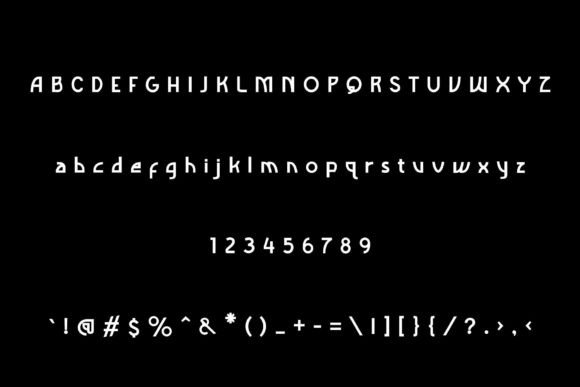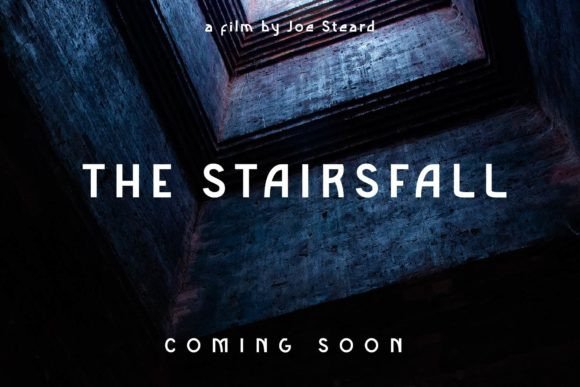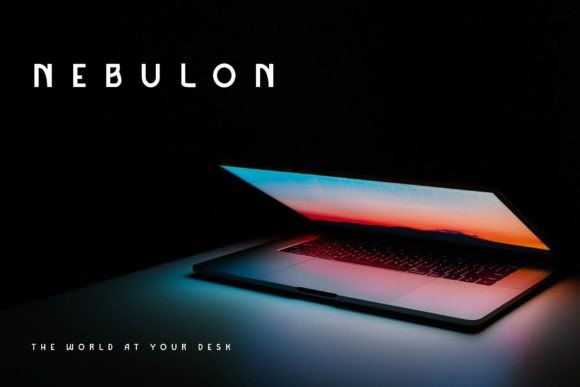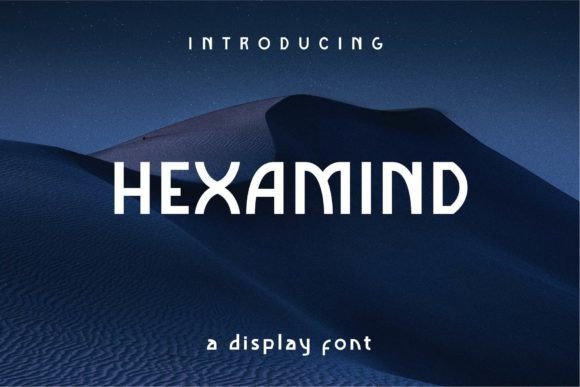
Introduction to Hexamind Font
Introducing Hexamind, the bold and modern display font perfect for any professional project.
With its unique and timeless style, Hexamind adds a touch of sophistication to any design Whether you’re creating a logo, website, or print materials, Hexamind is the perfect font to make a statement and stand out from the crowd.
Hexamind Font offers exceptional quality and versatility, making it a valuable addition to your design toolkit. Whether you’re creating for personal projects or commercial use, Hexamind Font delivers professional results.